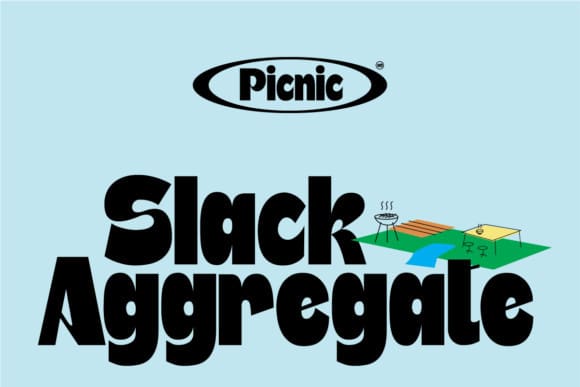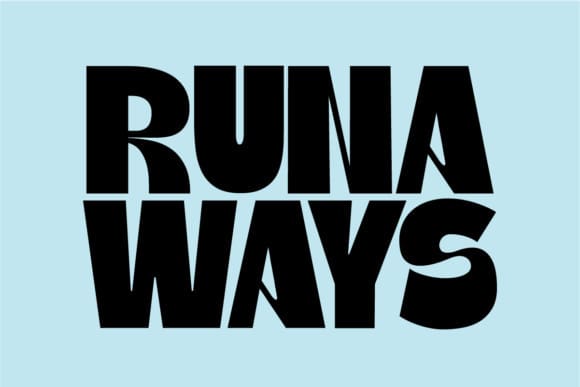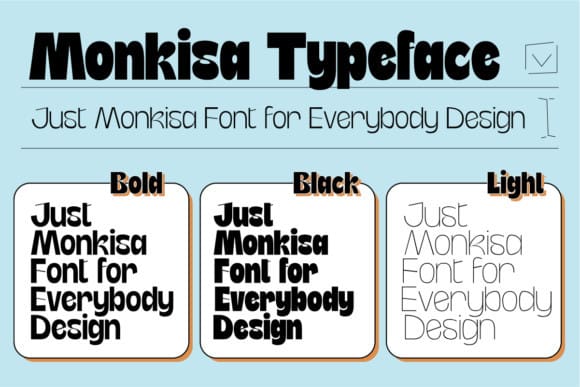
Monkisa Font
Monkisa Font is a new modern classic Art-Deco, inspired display typeface that’s sure to make your design stand out amongst the rest.
MonkisaFont is best used for posters, logos, branding, cover, events, advertisements, animation, social media posts, advertisements, and many more. Let your imagination run free!